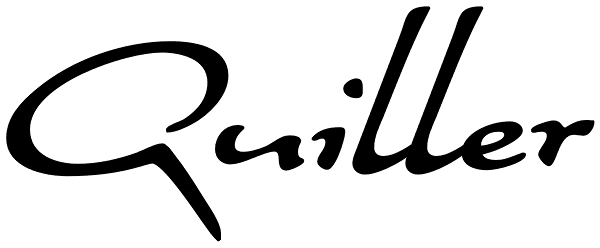
Quiller
Quiller is another catch from the hot metal days, another one that managed to slip through the fingers of both the photo-typers and digitizers of last 4 decades. JJ Sierke’s Privat design from 1966 is now resurrected and heavily extended to be used...
Quiller
Quiller Ligatures
Quiller Swash